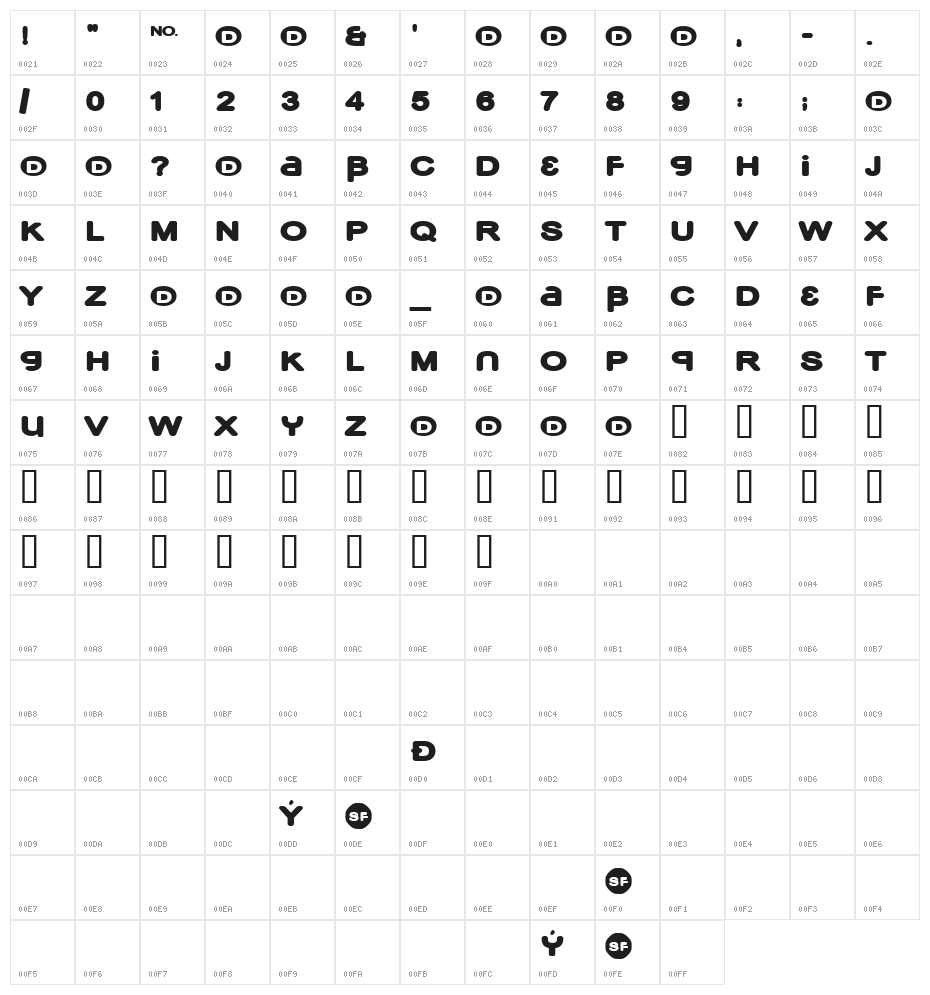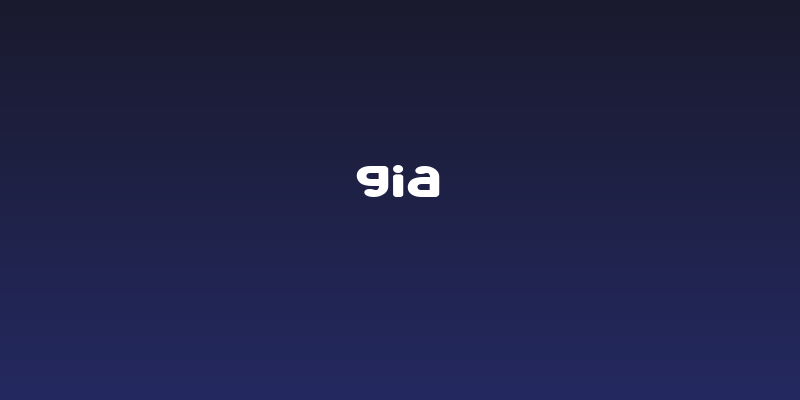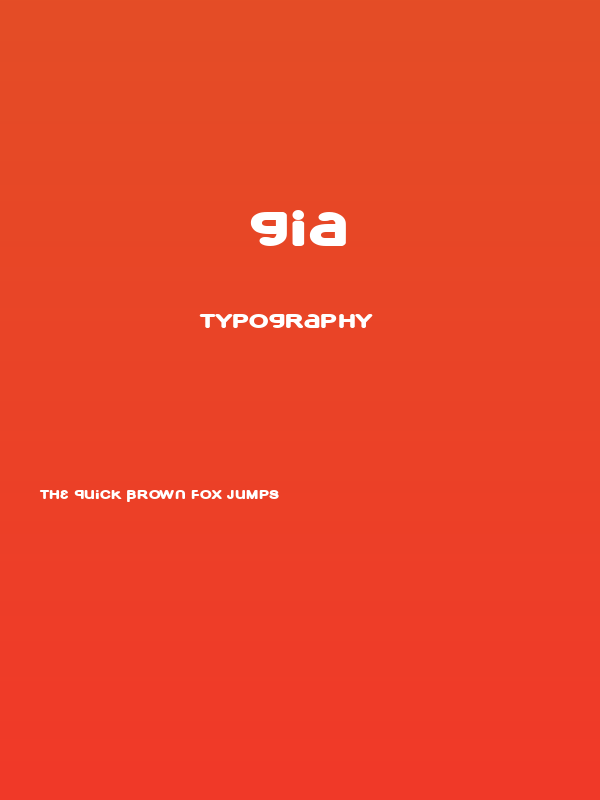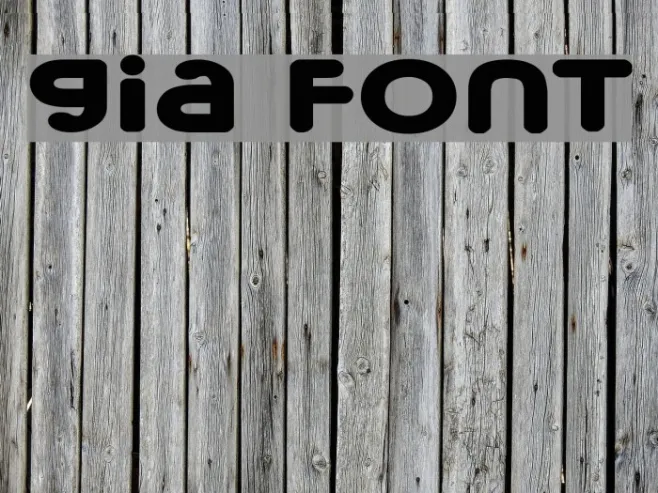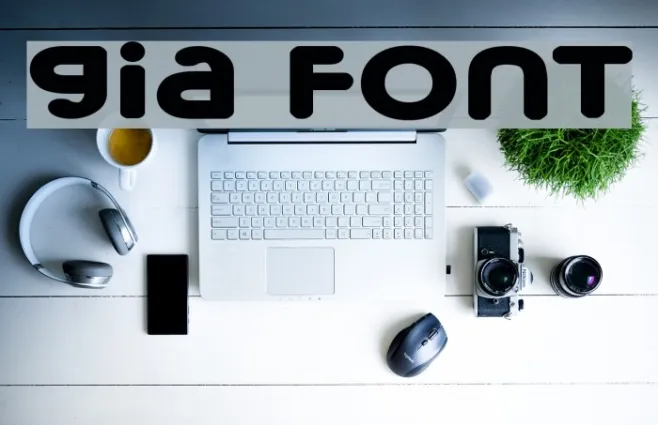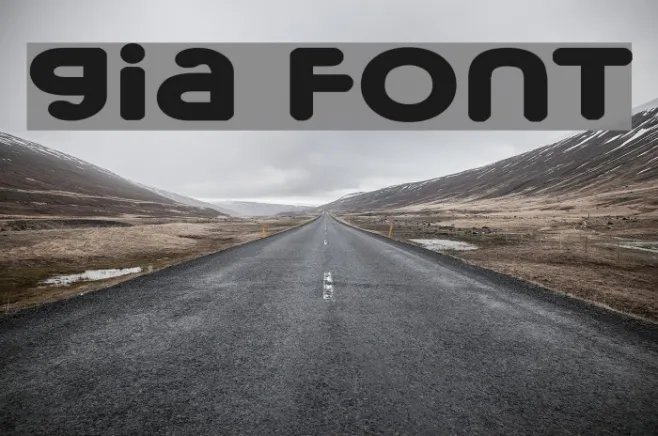
Gia Font
Gia Description
This font features a bold, rounded style with a playful and modern aesthetic. The characters are uniformly thick, giving them a strong presence on the page. The rounded edges and smooth curves contribute to a friendly and approachable look, making it suitable for a variety of design projects. The uppercase and lowercase letters maintain a consistent style, with the lowercase letters mirroring the boldness of the uppercase. The numbers are equally robust, ensuring readability and visual impact. Special characters are designed with the same rounded and bold characteristics, providing a cohesive look across all elements.